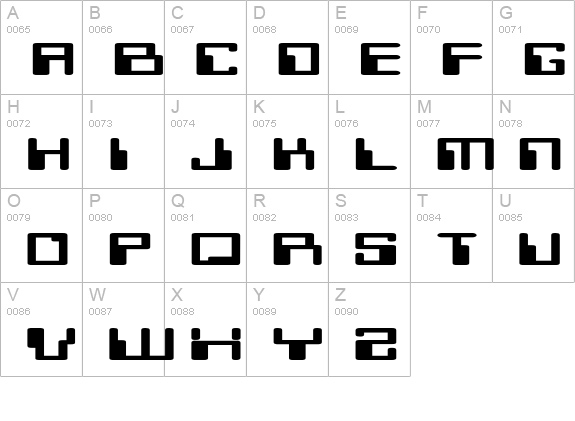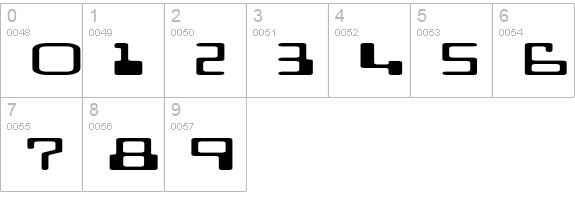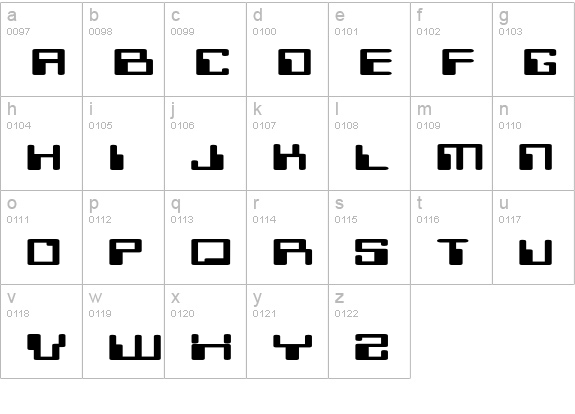
MicrExtended Font Details
MicrExtended font is a versatile and modern typeface that is perfect for a wide range of design projects. Its clean lines and sharp edges give a professional and sleek look to any text or graphic. This font is ideal for use in business cards, logos, packaging, and more. What sets MicrExtended font apart is that it is available for free! You can easily download this font at FontsMarket.com and start using it in your projects right away. With its bold and impactful design, MicrExtended font is sure to make a statement and elevate the visual appeal of your designs.